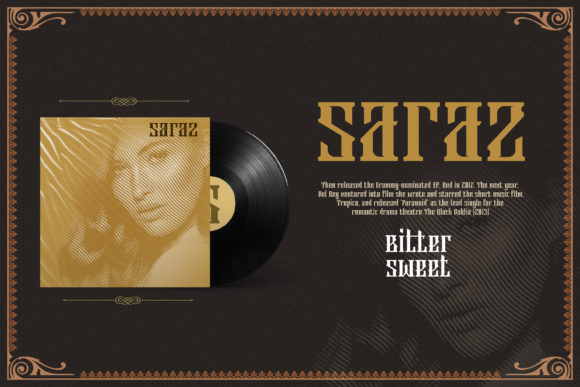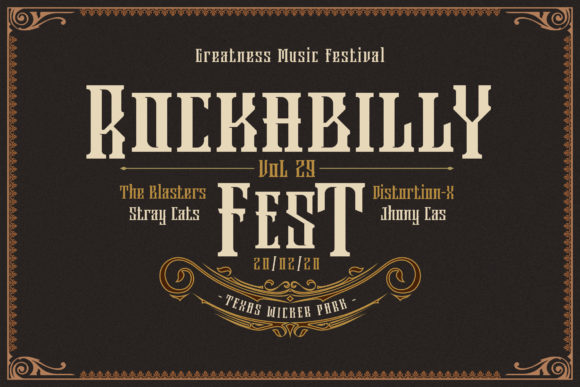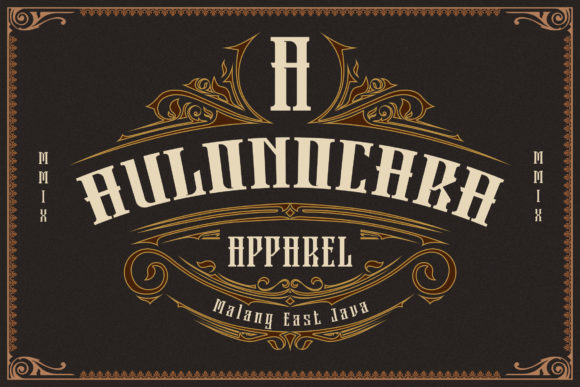
The Moment of Truth: When Fonts Can Make or Break Your Design
I still remember the time I was working on a project for a client who wanted a bold, eye-catching logo. I had the concept, the colors, and the overall aesthetic nailed down, but I was struggling to find the perfect font. I scoured the internet, tried out dozens of fonts, but nothing seemed quite right. That was until I stumbled upon Aeloria Font. 💡
It was like a breath of fresh air – bold, chunky, and perfectly imperfect. I knew right then and there that Aeloria was the one. In this article, I’ll share my experience with Aeloria Font, its features, and how to make the most of it in your designs.
A Honest Review: The Good, the Bad, and the Quirky
What I Love About Aeloria Font ✨
- 💥 Bold and chunky lettering that’s perfect for making a statement
- ✅ Highly legible, even in smaller sizes
- 🎨 Versatile and can be used for a wide range of design projects, from logos to posters
- 🌈 Aesthetic that works well with both bright and muted color palettes
- ⚠️ May not be the best choice for body text or longer paragraphs, as it can be overwhelming
- 🤔 Some users may find the font a bit too bold or in-your-face
Aeloria Font comes with a range of OpenType features that can elevate your designs. Here’s how to access them in Adobe Photoshop or Illustrator:
The Story Behind Aeloria Font: Designer Inspiration 📝
Aeloria Font was created by a talented designer who wanted to craft a font that would make a statement. Inspired by urban landscapes and modern architecture, Aeloria is a reflection of the bold, edgy aesthetic that’s characteristic of city living. The designer’s goal was to create a font that’s both beautiful and functional, and I think they’ve succeeded.
Q: What type of projects is Aeloria Font best suited for?
A: Aeloria Font is perfect for bold, eye-catching designs, such as logos, posters, and social media graphics.
Q: Is Aeloria Font available in different weights or styles?
A: Currently, Aeloria Font is available in a single weight, but the designer may release additional weights or styles in the future.
| Author | Typia Nesia |